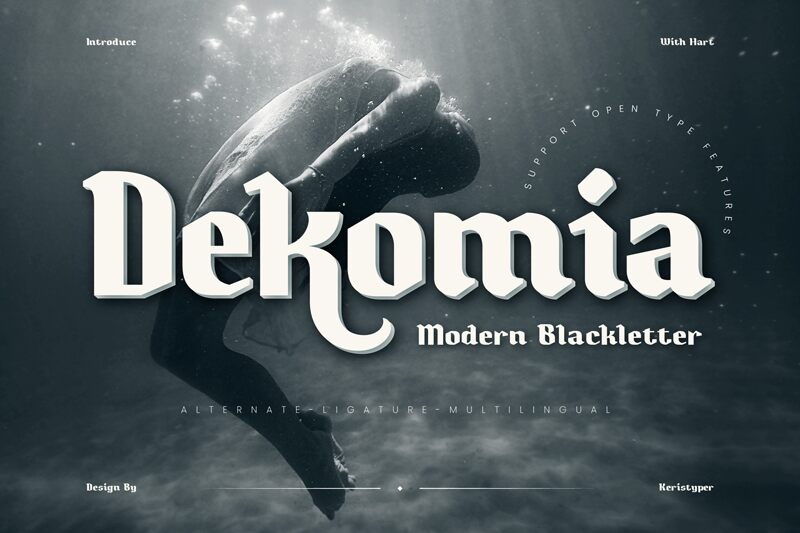
Dekomia font by Tezar Tantular is a free gothic font inspired by medieval-related concepts of fear, horror, and balance. The typeface carries a strong presence and has historical undertones all over it. Beneath its solid lines are many hidden decorative details that become more visible when enlarged, enhancing modern projects with an instant high-quality feel.
The modern style of the font downplays the harshness of traditional gothic fonts while maintaining their historical touch. Use for Halloween party posters, street fashion brand logos, novel covers with fantasy themes, video game interface text, and short printed/visual social media ads. Other possible uses are YouTube titles and podcast covers.
Dekomia